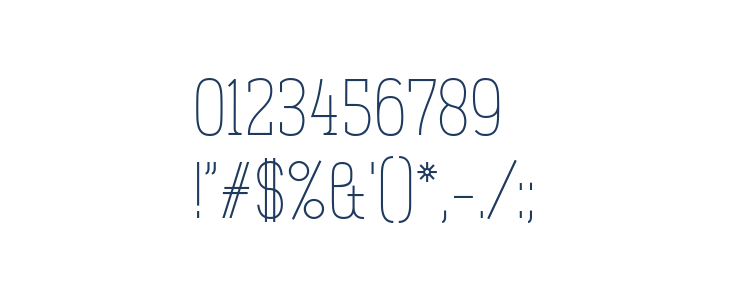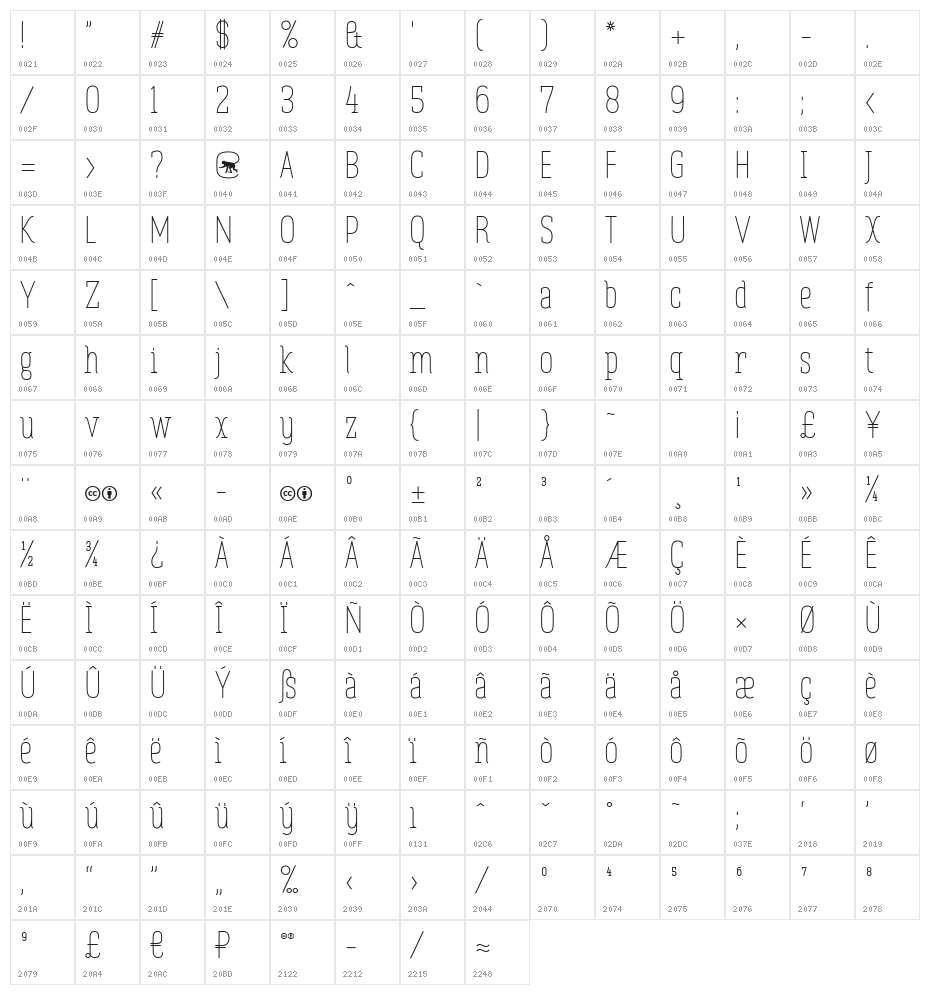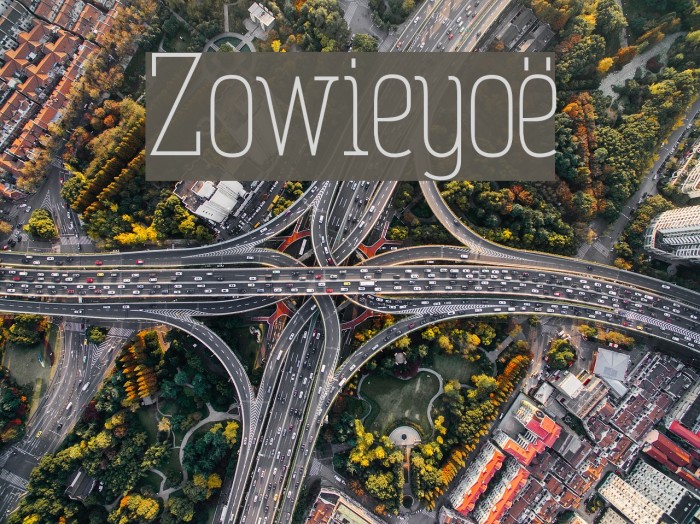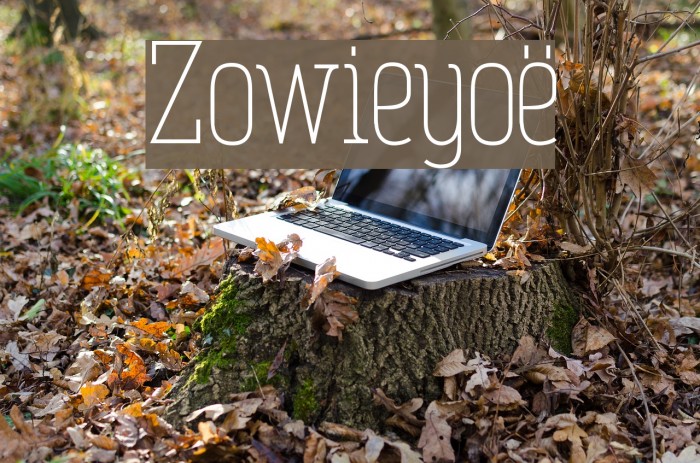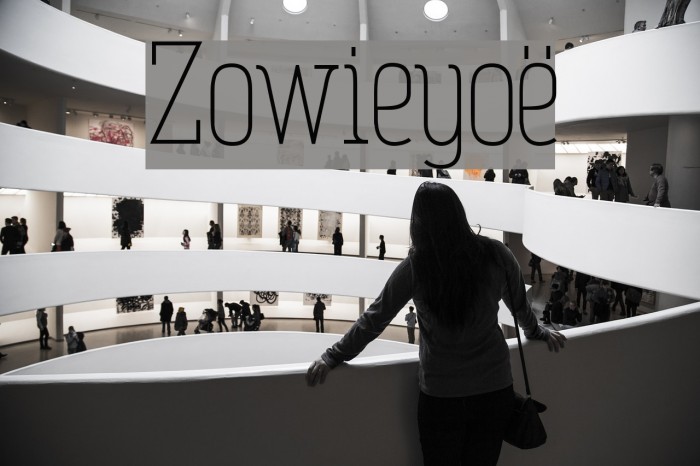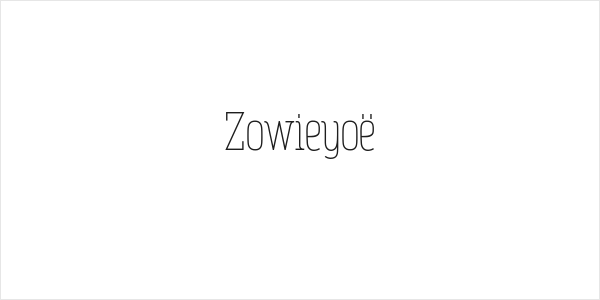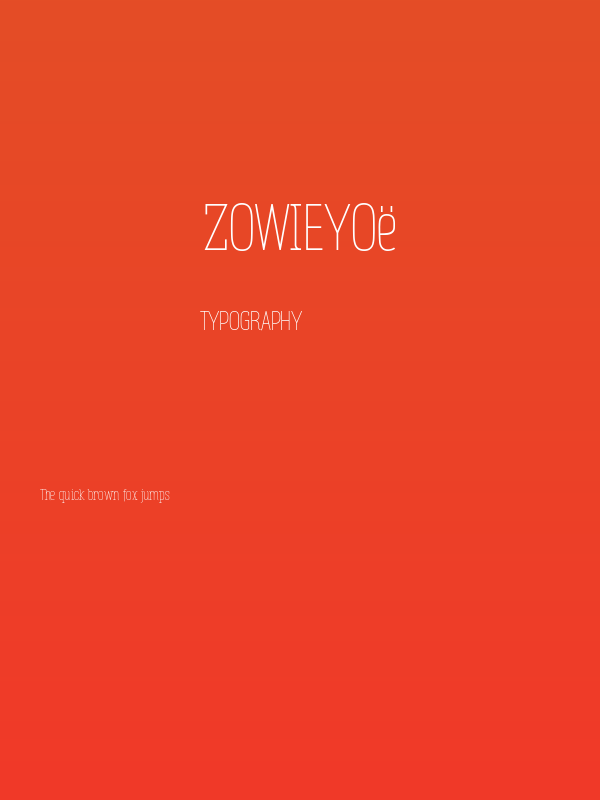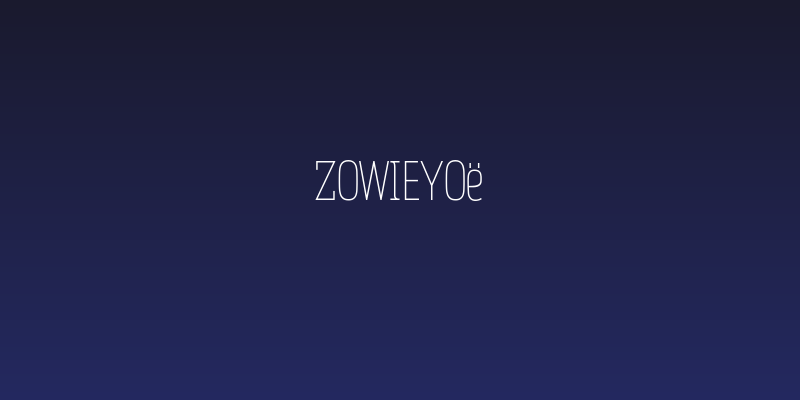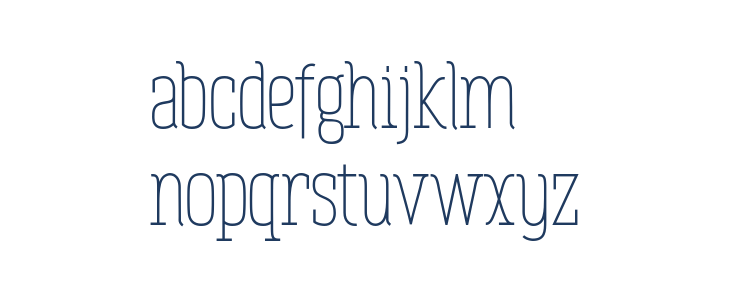
Zowieyoë Font
Zowieyoë Description
This font features a modern and sleek design with tall, narrow characters that exhibit a clean and minimalist aesthetic. The uppercase letters are uniformly aligned with a consistent height, while the lowercase letters maintain a similar style with slight variations in curvature, adding a subtle elegance. The numerals are clear and legible, matching the overall style of the alphabet. Special characters are included, maintaining the same thin and elongated form. The font's thin strokes and uniform line weight contribute to its sophisticated and contemporary appearance, making it suitable for a variety of design applications.